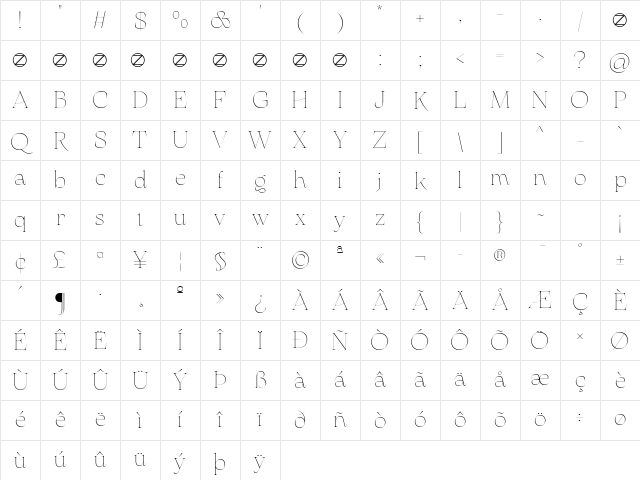
Arsenica Trial Thin Free Font
Arsenica Trial Thin
Style: Thin
Designer: Francesco Canovaro
Complete Arsenica Trial Thin glyph index. Displaying only characters natively supported by Arsenica Trial Thin font.
Design Context for Arsenica Trial
Arsenica Trial is a composed and adaptable typeface that performs quietly and consistently across a wide range of design contexts. Its slender proportions lend an understated elegance to any composition.